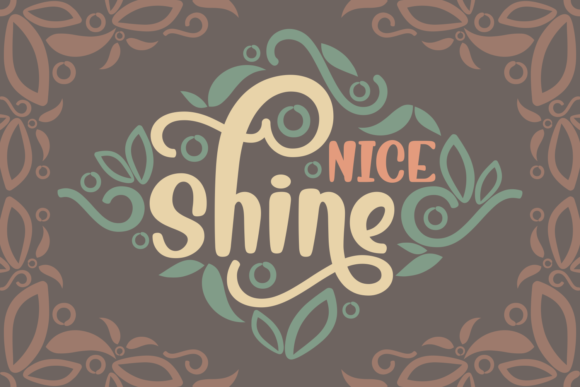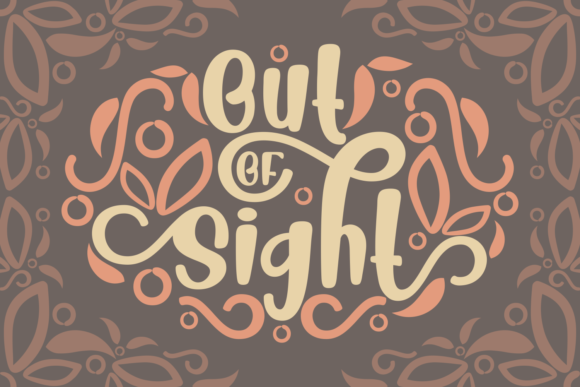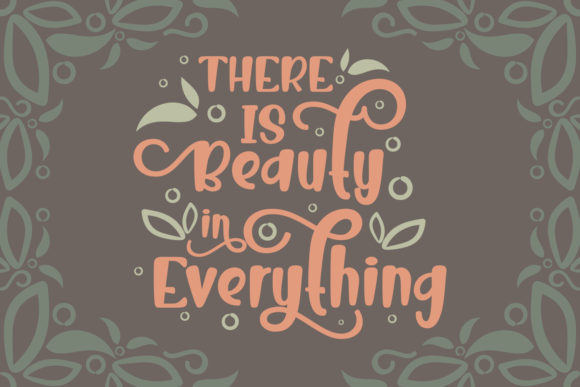
HomeScript FontsNice Shine Font Script Fonts Nice Shine Font FacebookXPinterestWhatsApp Nice Shine Font Poster 2 Nice Shine Font Poster 3 About Nice Shine Font Nice Shine is a stunningly unique handwritten font, full of authenticity! Get inspired by its bold feel. DOWNLOAD ON CREATIVE FABRICAThis font is sold and delivered by Creative Fabrica. Font Canyon may earn a commission if you buy through this link. People also explored Milleniapolis Font Girl Passion Font Everline Font Morning Coffee Font Peony Vacation Font Drawing Font Aurelly Font British Font Love Secreet Font 291 0 TagsNice Shine Font Previous articleRaffina FontNext articleAlyana Font LEAVE A REPLY Cancel reply Comment: Please enter your comment! Name:* Please enter your name here Email:* You have entered an incorrect email address! Please enter your email address here Website: Save my name, email, and website in this browser for the next time I comment. Personal Use Free Zalitta Personal Use Free Read more about this font Awesome Snowflakes Font Personal Use Free Read more about this font Neuropol Personal Use Free Read more about this font Rollayka Personal Use Free Read more about this font BLOG Elegant Wedding Invitation Fonts – Handwritten & Script Fonts Elegant Wedding Invitation Fonts Your wedding day is one of the most important moments of your life, and every detail matters—including your invitation design. Our... Modern Sans-Serif Fonts That Brands Love in 2025 Best Fonts for T-Shirt Design – Top 2025 Picks Using Fonts in Digital Marketing: Tips to Strengthen Your Brand Identity